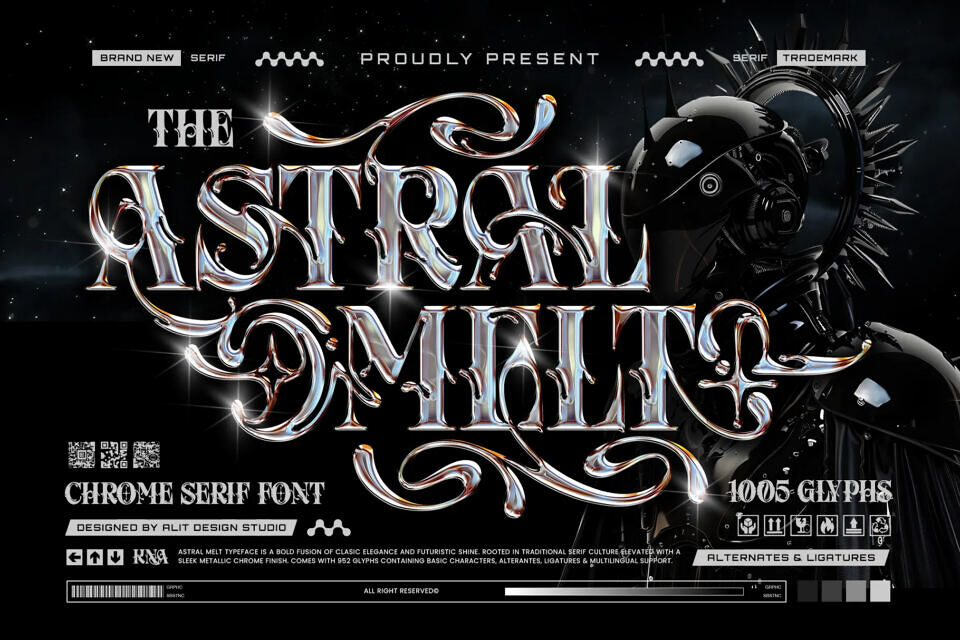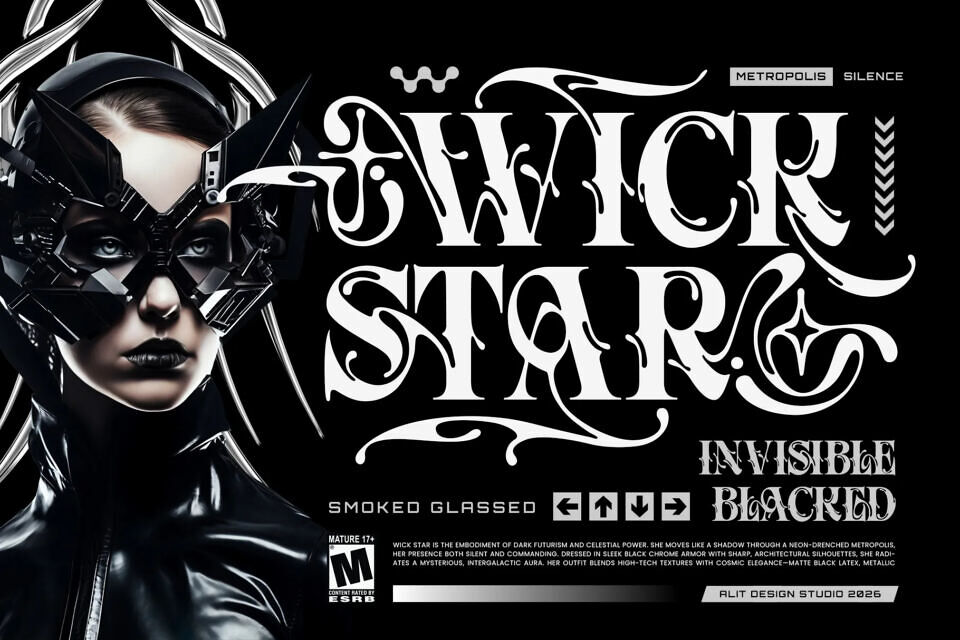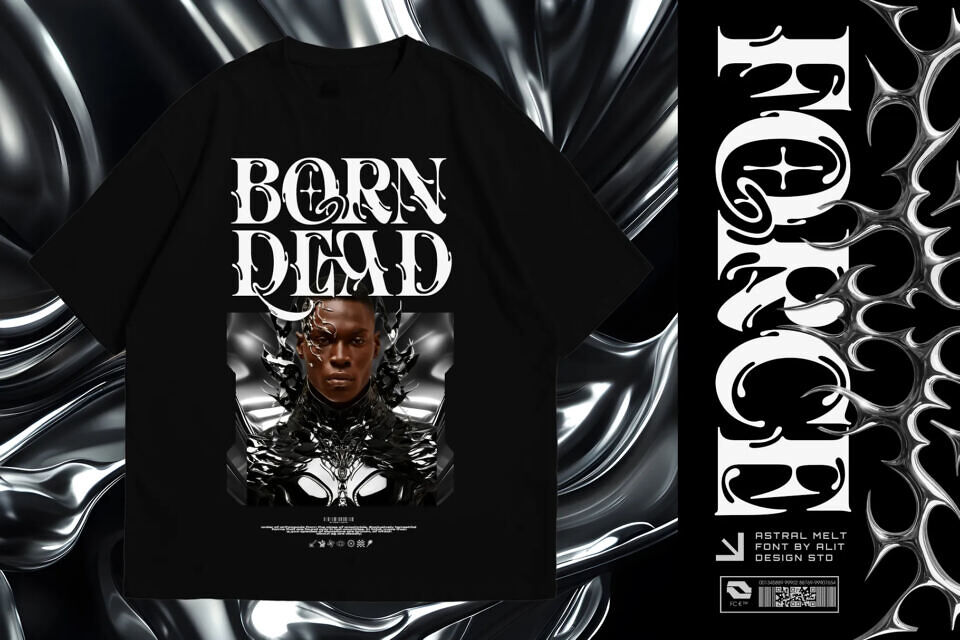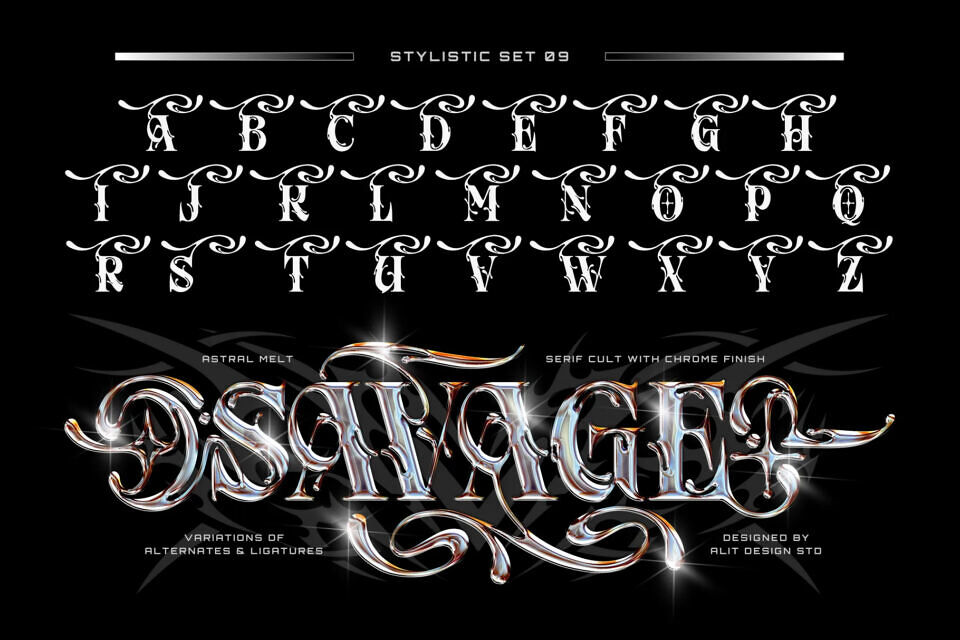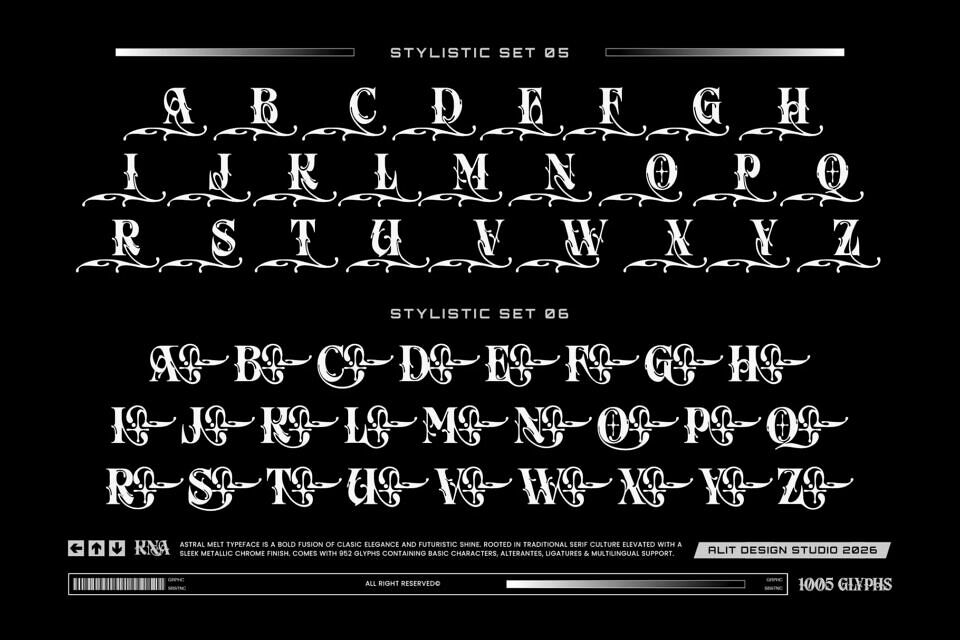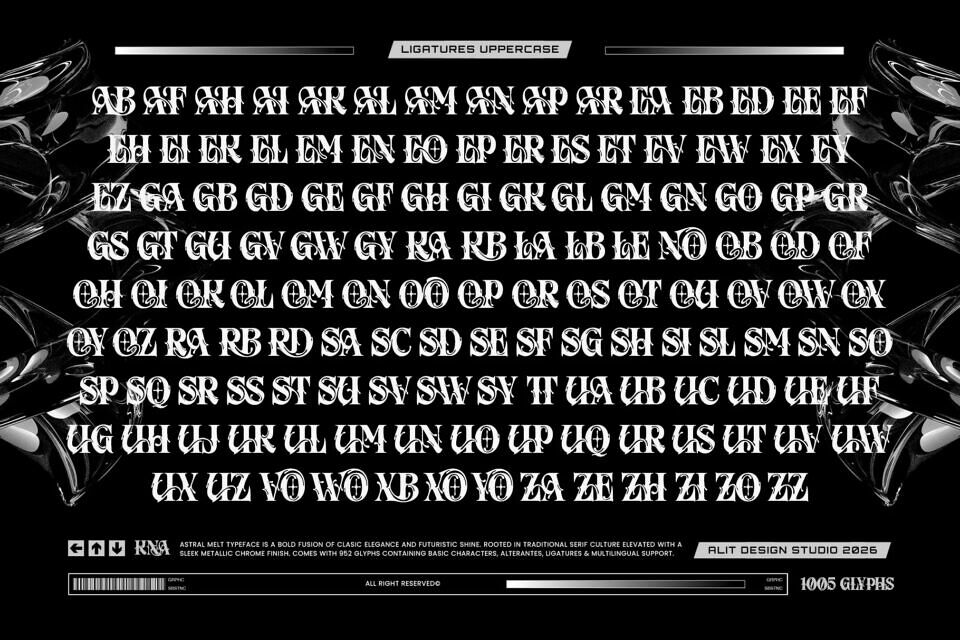
Step into the future of typography with Astral Melt, a bold typeface that brilliantly fuses classic typographic elegance with a cutting-edge, sci-fi shine. Rooted in traditional serif and gothic blackletter culture, Astral Melt is elevated by a sleek, molten aesthetic that feels like flowing liquid metal.
Designed by Alit Design Studio, this font doesn’t just spell out words; it creates otherworldly visual experiences. The flowing curves, sharp spikes, and chrome-like fluidity make it the ultimate choice for designers looking to push boundaries and embrace the dark cyber, Y2K, and futuristic aesthetics.